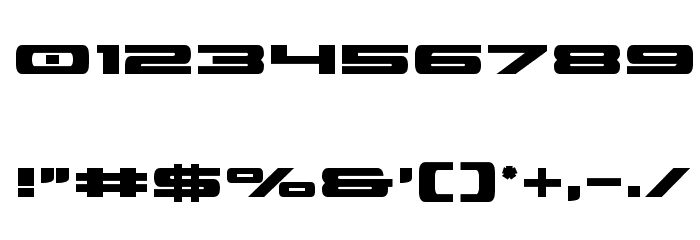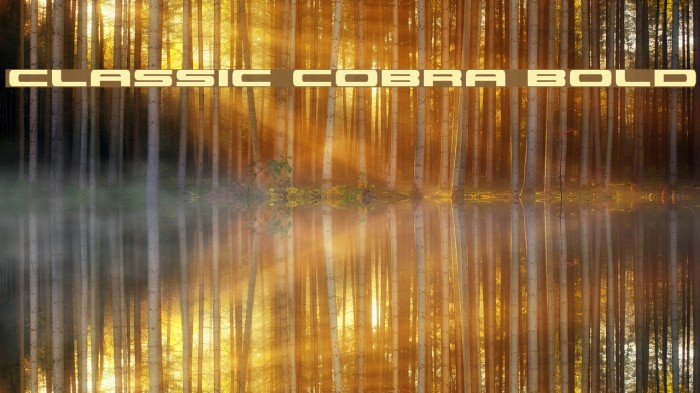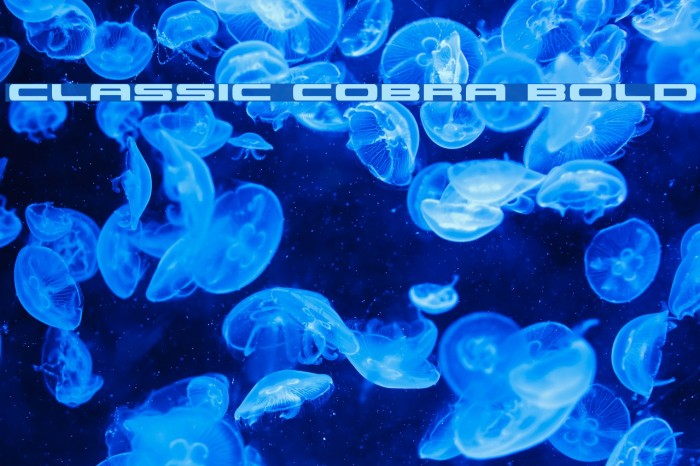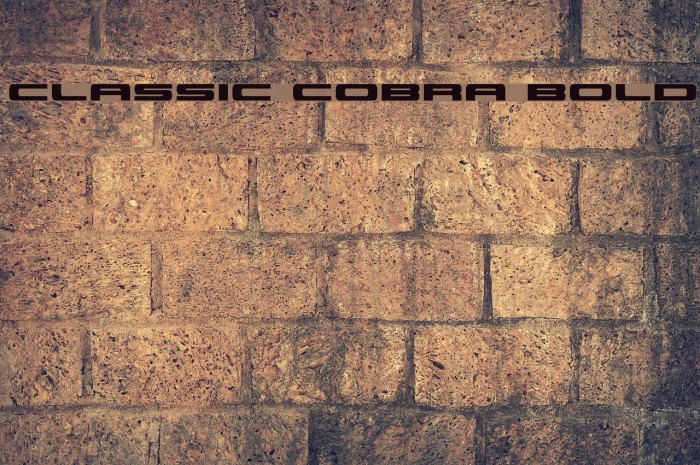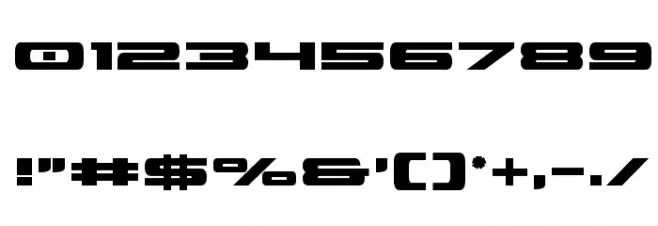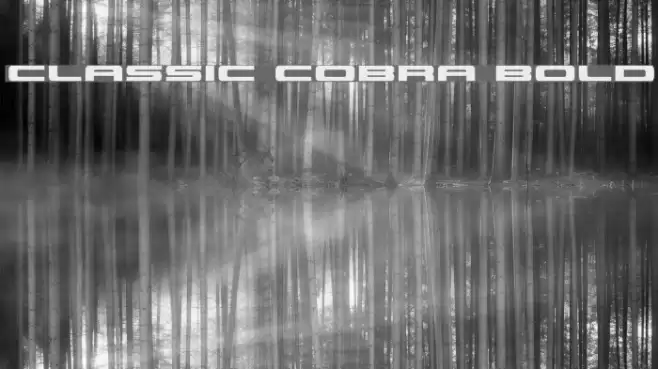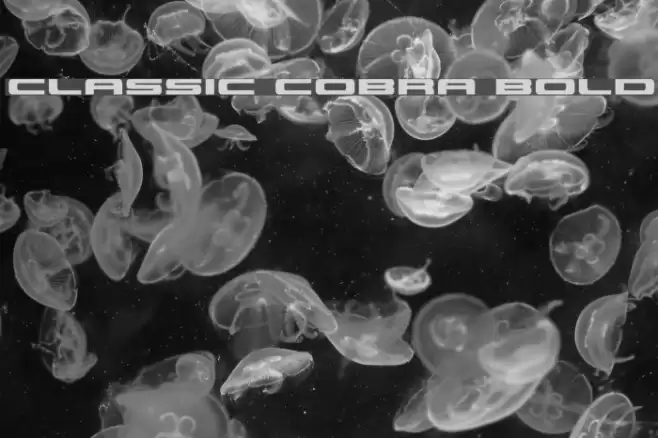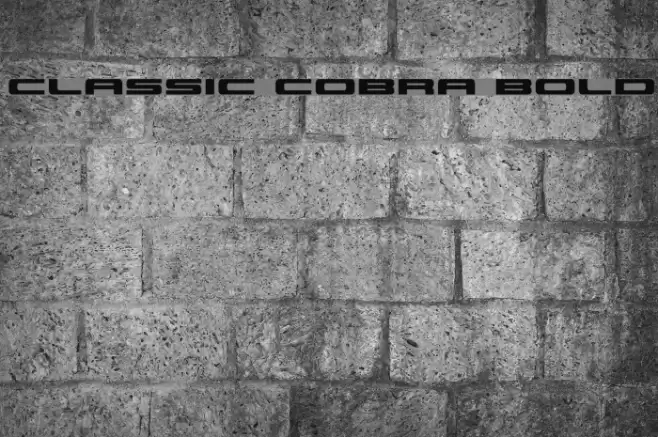
Classic Cobra Bold Font
This font exhibits a bold and modern design with a strong geometric structure. The characters are wide and have a uniform thickness, giving them a robust and impactful appearance. The uppercase letters are particularly striking, with sharp angles and clean lines that convey a sense of power and precision. The numerals and special characters maintain this bold aesthetic, ensuring consistency across all glyphs. The overall style is futuristic and dynamic, making it suitable for projects that require a strong visual presence.
A bold, geometric font with a modern and powerful aesthetic.
- Proposed Projects: Ideal for branding, sports team logos, automotive designs, and technology-related projects.
- Width: Expanded